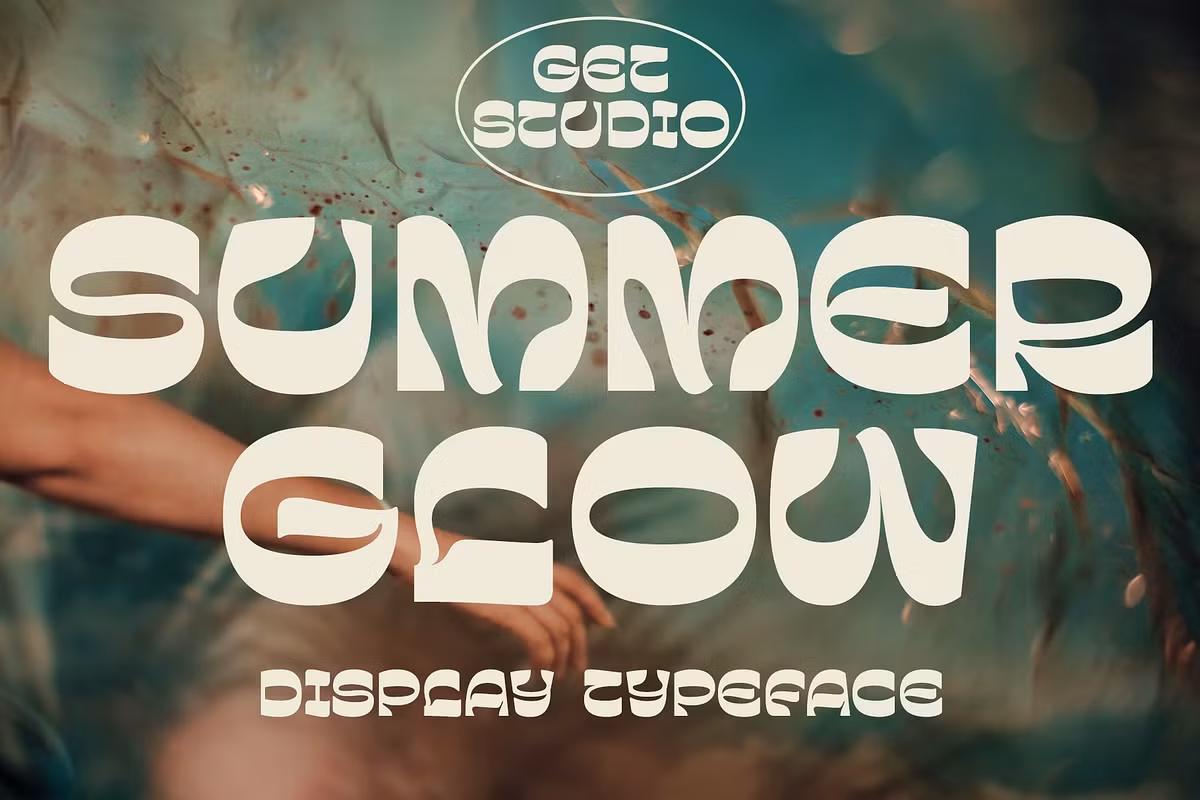
Summer Glow - Display Typeface Free Download
Summer Glow Display Typeface Free Download
Please note, you must purchase this font for commercial use. However, you can easily download Summer Glow Display Typeface Free Download for personal use and testing purposes. Summer Glow Display Typeface is a vibrant, bold, and modern font designed to bring a fun and lively vibe to your designs. Perfect for summer-themed projects, logos, posters, social media graphics, and event invitations, this font adds energy and warmth to any creative project. Its playful yet professional design ensures that your typography stands out in any context, making it ideal for both casual and sophisticated designs. Download Summer Glow Display Typeface Free Download today and explore its potential before opting for a commercial license.